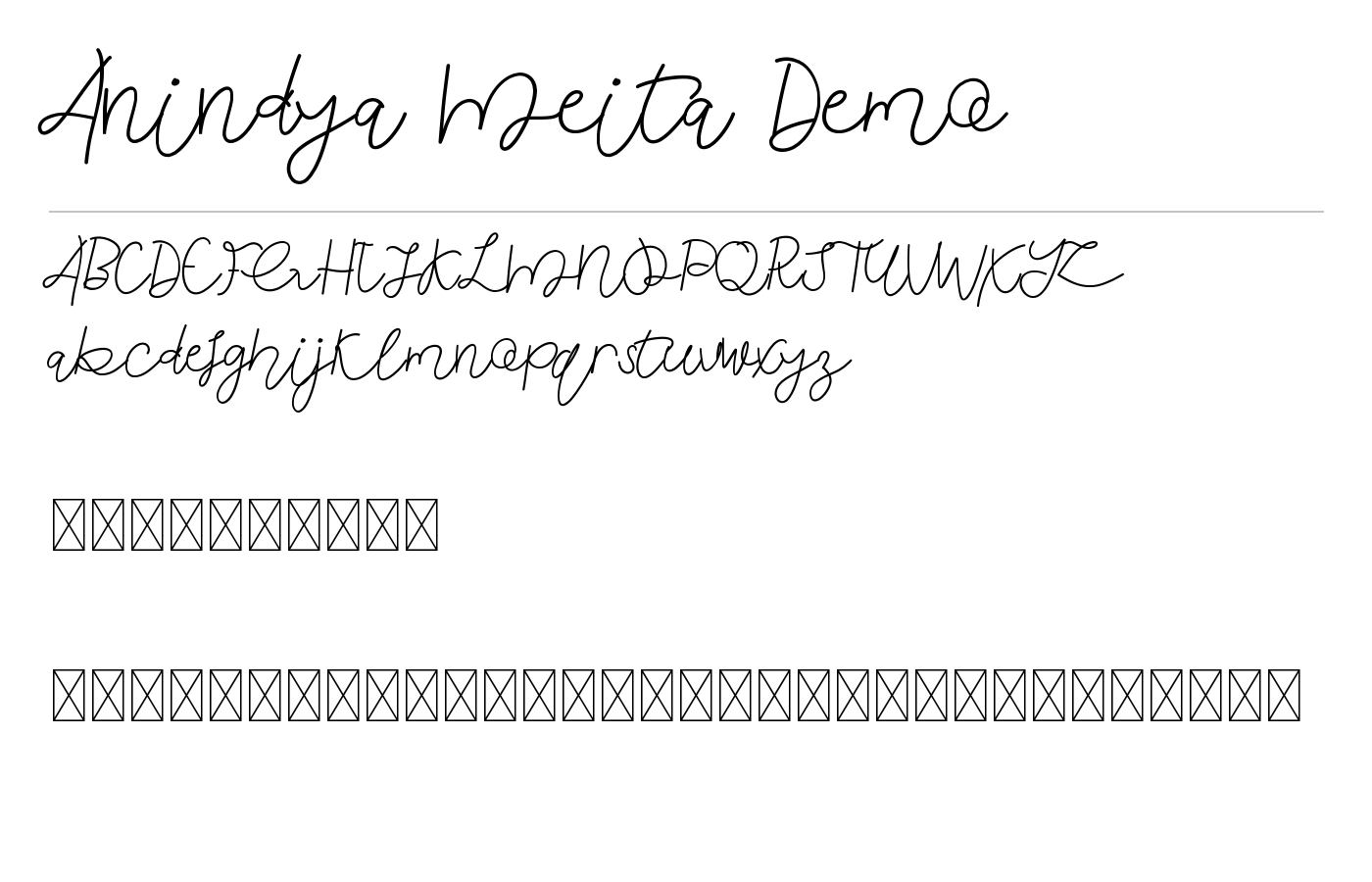
Anindya Meita Demo is a delicate, handwritten script font with a light, airy feel created by its thin strokes and flowing letterforms. Its natural, casual style makes it perfect for personal branding, invitations, and creative projects that want to convey warmth and authenticity. This font works well in designs that need a touch of elegance without formality, adding a charming handcrafted look.
Anindya Meita Demo Font
About Anindya Meita Demo Font
| Font family | Anindya Meita Demo Font |
| Designer | Yasri Ainun N & Sarah Suci Pauziah |